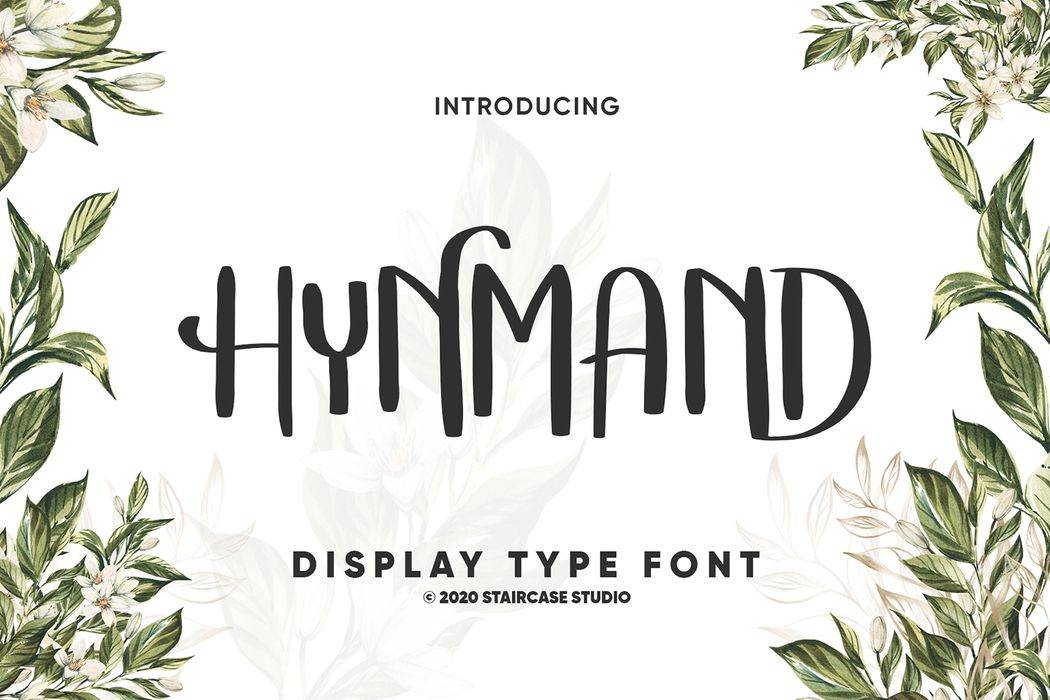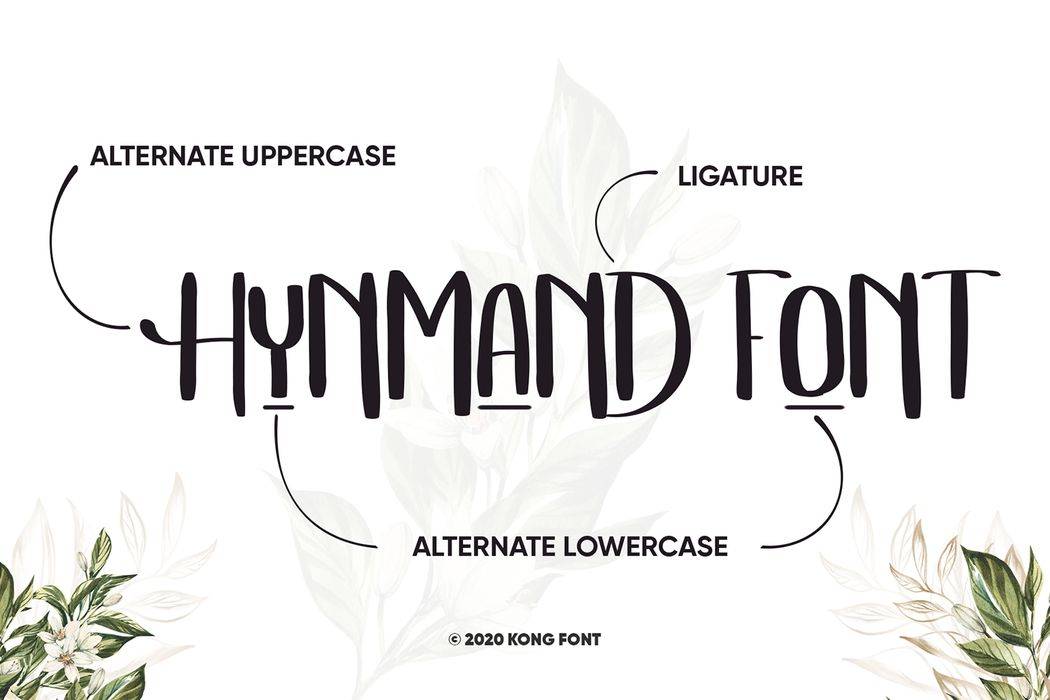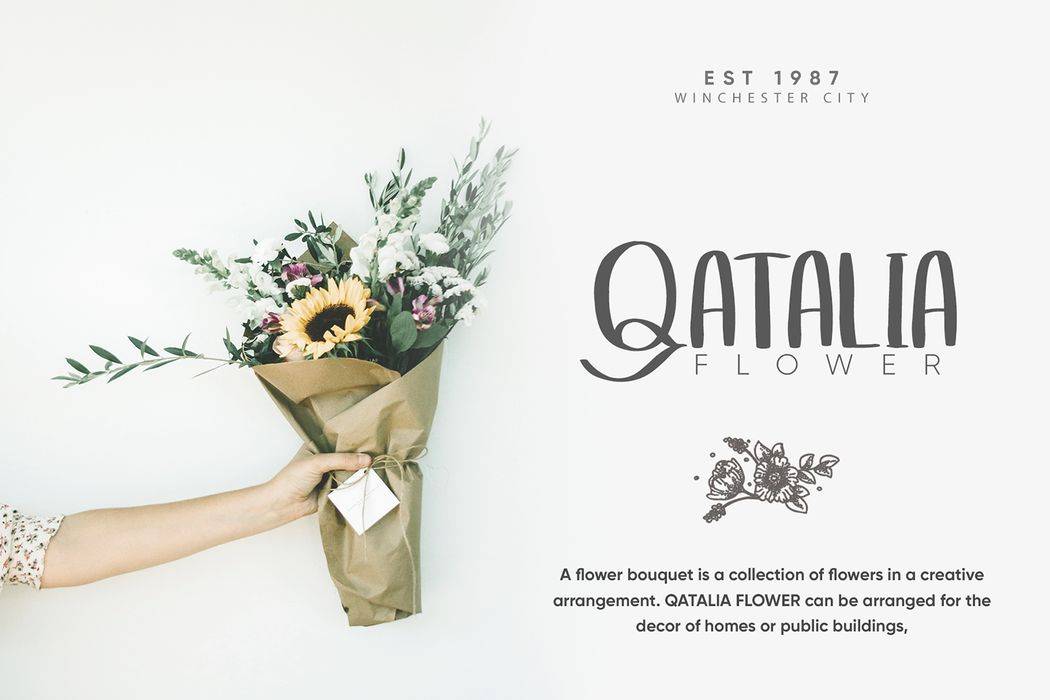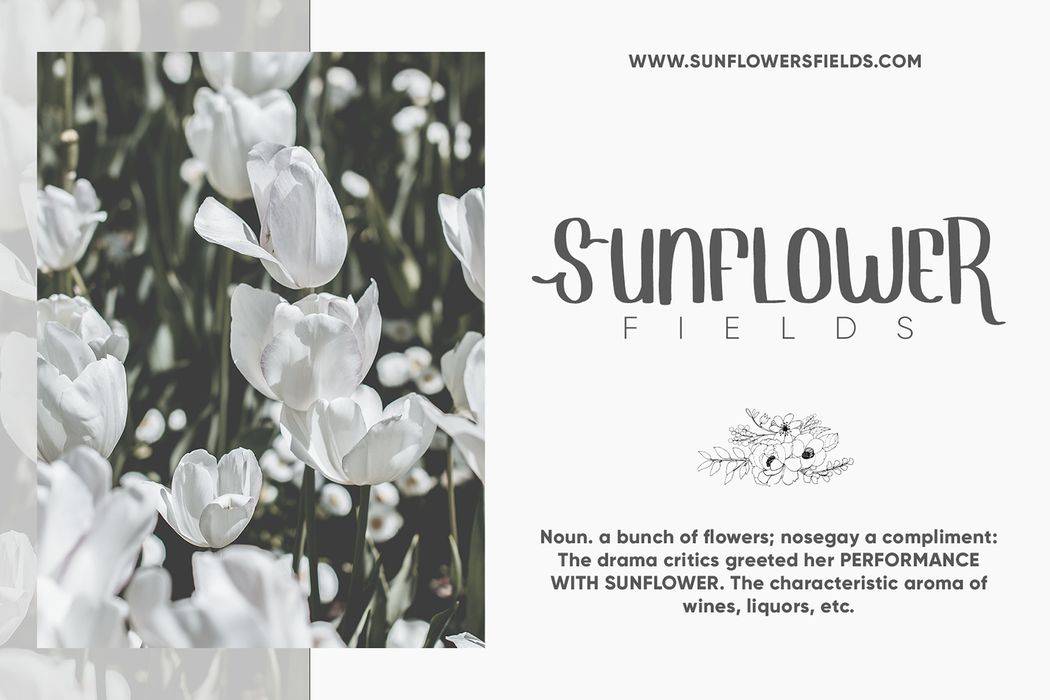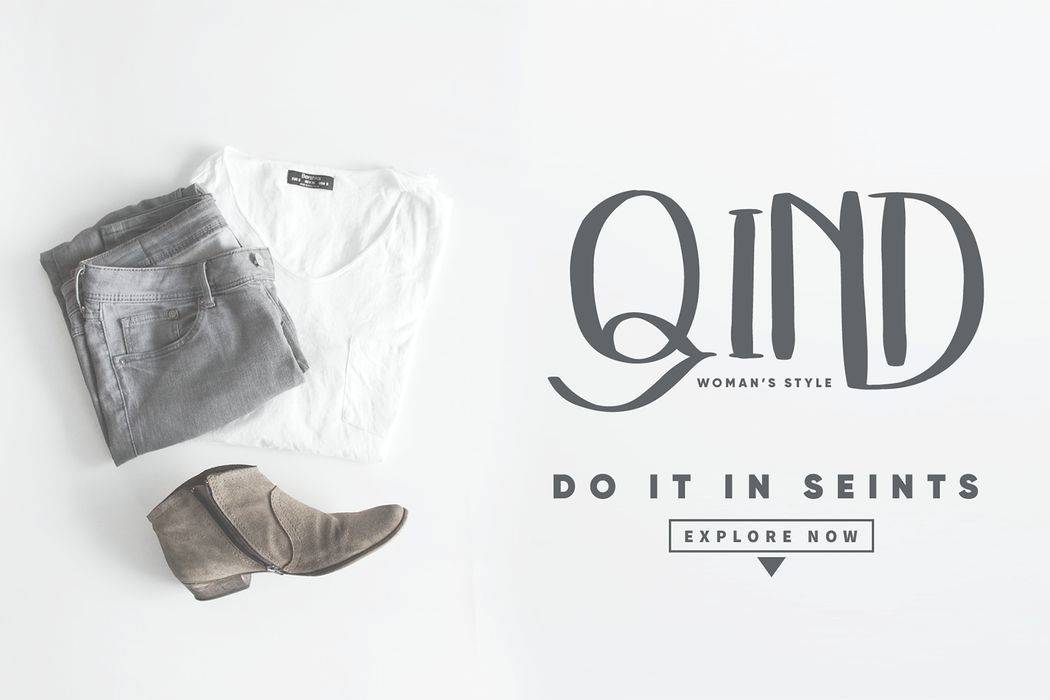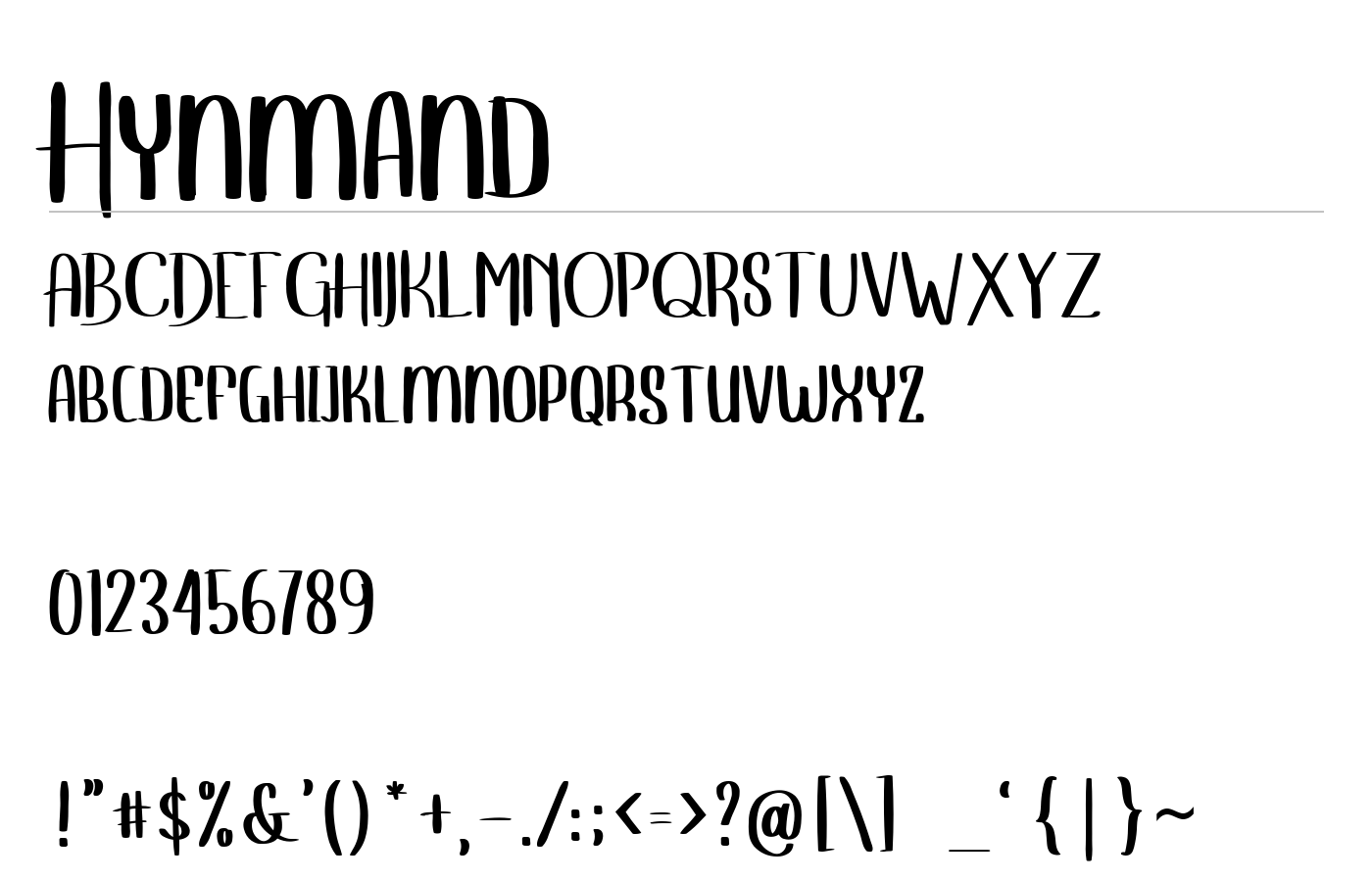
Hynmand is a quirky, hand-drawn sans serif font with a playful, casual vibe. Its tall, narrow letterforms feature uneven strokes and charming irregularities, making it ideal for designs that want to feel friendly and approachable. This font works well for creative branding, fun headlines, and projects that benefit from a uniquely informal touch.
Hynmand Font
About Hynmand Font